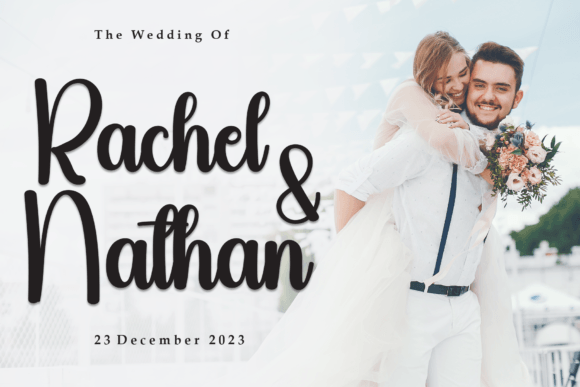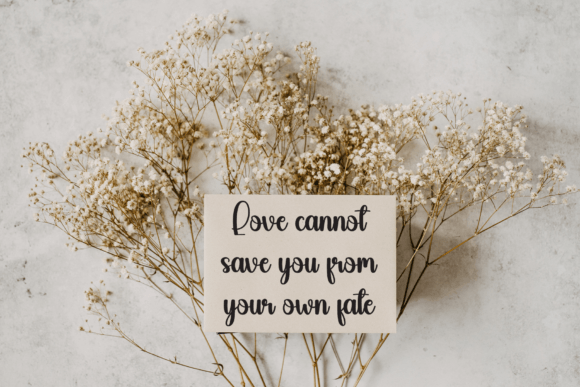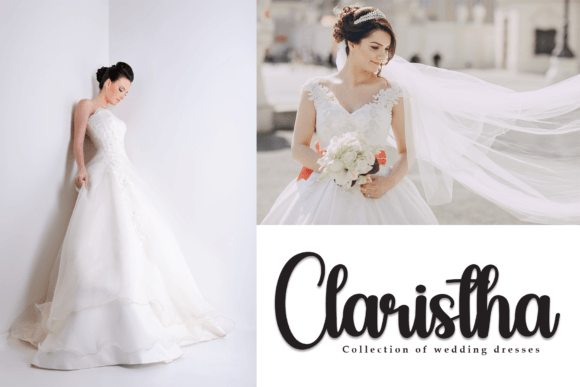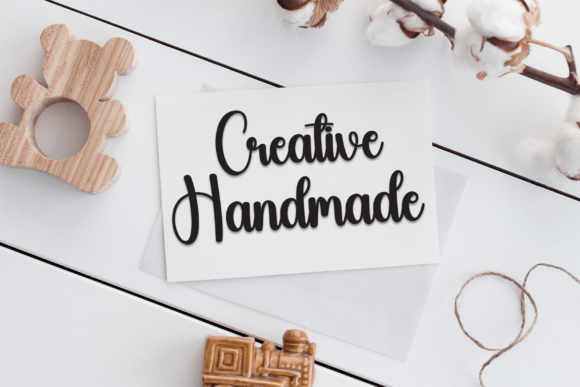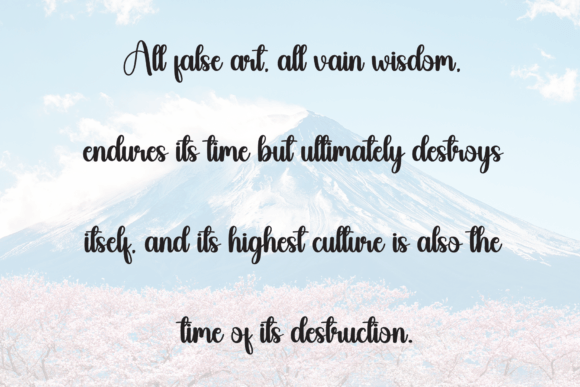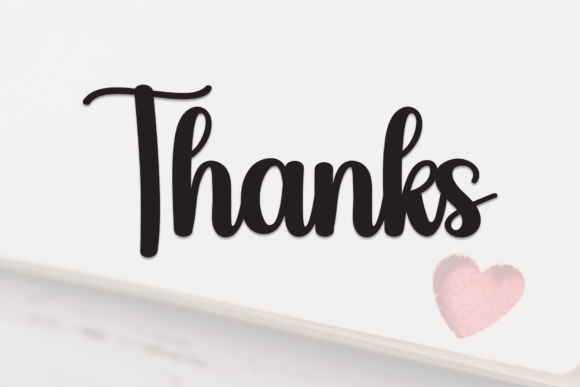
The Sweetest Touch: Booklove Font
As designers, we’ve all been there – staring at a blank page, struggling to find the perfect font to bring our creative vision to life. It’s that moment of inspiration when everything falls into place, and the perfect font suddenly appears. For me, it was the Booklove Font, a sweet and friendly handwritten display font that added a touch of whimsy to my latest project.
Booklove Font is the perfect addition to any design, whether it’s a wedding invitation, a birthday card, or a social media post. Its cute and fun style is sure to capture attention and leave a lasting impression. As designers, we know how valuable it is to have a versatile font in our arsenal, and Booklove Font is definitely one to consider.
With its endless design possibilities, the Booklove Font is a must-have for any designer looking to add a personal touch to their work. Its unique style and charm make it an ideal choice for projects that require a little extra something special.
Key Features of Booklove Font
- Unique Characteristics: Booklove Font features a distinctive, elegant script style with flowing connections between letters, making it ideal for use in book titles, quotes, and other literary applications.
- Font Family: Booklove Font is part of a larger font family that includes multiple weights and styles, allowing designers to create a cohesive look and feel across their designs.
Booklove Font Review
Overall, I have mixed feelings about the Booklove Font. There are some aspects that shine, while others leave me wanting more.
- Unique and elegant design: Booklove Font has a distinctive, handwritten feel that sets it apart from more generic font styles.
- Perfect for book-related projects: As the name suggests, this font is ideal for book covers, titles, or any project that needs a touch of literary elegance.
- Highly legible: The font is well-designed for readability, making it suitable for body text as well as headlines.
- Limited font weight options: Booklove Font only comes in a few weights, which may limit its versatility in certain designs.
- Not suitable for large-scale headings: While the font is legible, it may not be the best choice for very large headings or titles, where a more dramatic font may be needed.
Overall, I think Booklove Font is a great choice for specific projects, but it may not be the best fit for every design. With a little creativity, it can add a unique touch to your work, but it’s essential to consider its limitations before using it.
Getting the Most Out of Booklove Font
To get the most out of Booklove Font, use it for:
- Book covers and spine designs
- Quote graphics and typography
- Stationery and letterhead designs
Booklove Font is commonly used for:
- Book clubs and reading groups
- Book reviews and blog posts
- Author branding and marketing materials
Alternatives to Booklove Font for Designers
Playfair Display is a luxurious and elegant serif font, perfect for creating a high-end and sophisticated look. It features intricate details and ornate flourishes, making it ideal for use in titles, headings, and other display typography. When to use: Luxury branding, high-end fashion, and formal invitations.
Comparison to Booklove Font: While Booklove Font has a more rustic and vintage feel, Playfair Display is more refined and sophisticated. Booklove Font is better suited for a more casual and vintage aesthetic, whereas Playfair Display excels in formal and luxury settings.